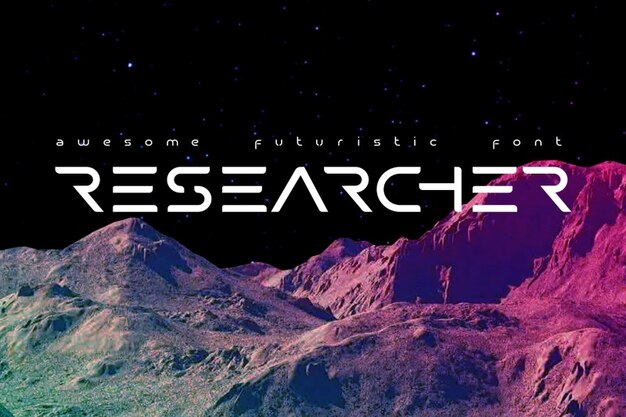
Researcher Font
Are you ready to shoot for the stars with this out-of-the-ordinary Researcher font? We're sure you are! Use this electrifying sleek typeface if you want your project to look really cool, smart and high-tech. In addition, it includes uppercase and lowercase letters, plus numbers and alternate symbols. Freepik allows you to download it 100% free. Try it out and take your project to the next level!